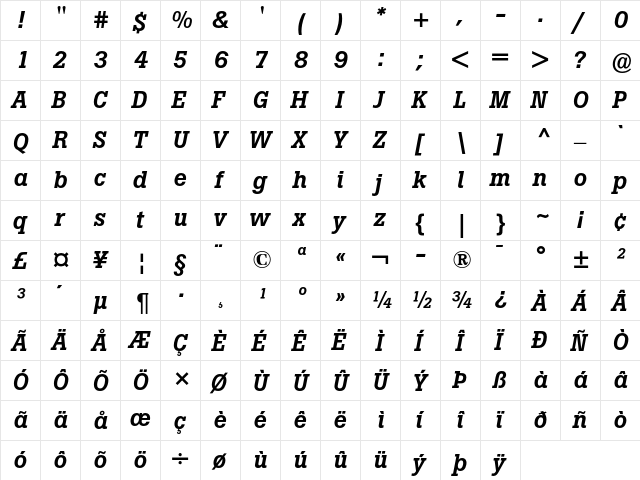
Boton Medium Italic
Design Context for Boton Typeface
Boton is a composed and adaptable typeface that performs quietly and consistently across a wide range of design contexts. The dynamic lean of this cut emphasises speed and emphasis in any layout.
Pro Tip: Use Boton for emphasis, pull quotes, and subheadings where its slanted energy can add rhythm to the layout.